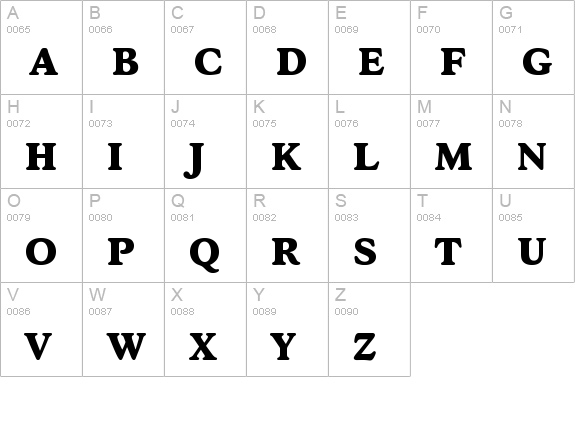
StratfordEF-Bold Font Details
StratfordEF-Bold is a strong, high-contrast variant in the StratfordEF typeface family \xE2\x80\x94 well suited to headlines, attention-grabbing titles, and strong calls-to-action.
StratfordEF-Bold is a bold and dynamic typeface designed to make a statement. With its strong and commanding presence, this font is perfect for headlines, titles, and branding projects that require a touch of boldness. The thick strokes and clean lines of StratfordEF-Bold exude confidence and style, making it a versatile choice for a wide range of design applications. The best part? This striking font is available for free download at FontsMarket.com! Whether you're a designer looking to add a bold touch to your projects or a business owner in need of a powerful font for your branding, StratfordEF-Bold has got you covered. Download it today and elevate your designs with this impressive and impactful typeface.